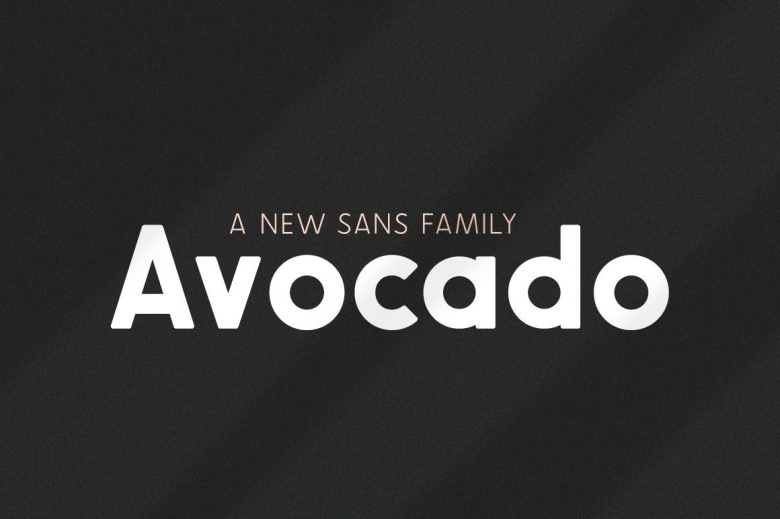
Avocado Sans Font
New Avocado Hits Avocado Sans Font Family by Alex Zeimedad. 3 Flavors: Regular, thick and thin! They all complement in theory one another and are perfect for pairing with scripts and serifs. Bias FX Trio Download it and check it out your self!
Avocado Sans Font Family